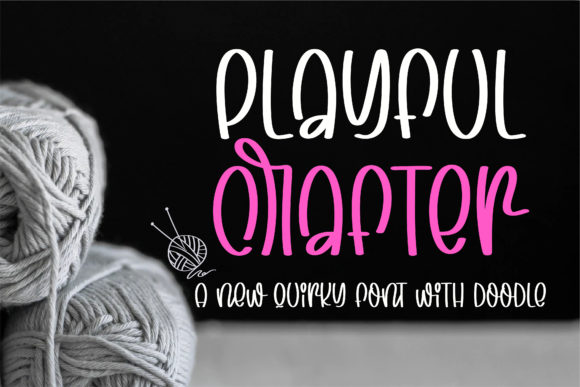
Welcome to the world of Playful Crafter Font, where creativity and joy dance together! This adorable display font, brought to life by BitongType, is a true masterpiece, crafted to add a touch of whimsy and delight to your designs. Its charming characters, reminiscent of a child's playful scribbles, will breathe life into your projects, making them burst with personality.
Imagine your address stamp adorned with Playful Crafter Font's enchanting letters. Each stroke, each curve, will tell a tale of your unique style. Your envelopes will become mini canvases, showcasing your love for the extraordinary. And as your mail embarks on its journey, it will carry with it a piece of your creative spirit, charming everyone along the way.
But Playful Crafter Font's magic extends far beyond address stamps. It's a versatile font, perfect for adding a touch of playfulness to your logos, branding, social media posts, and even your handwritten notes. Its quirky charm will transform your designs into eye-catching masterpieces, leaving a lasting impression on your audience.
Whether you're a seasoned designer or just starting your creative journey, Playful Crafter Font is your perfect companion. Its user-friendly nature makes it a breeze to work with, allowing you to unleash your imagination without any technical hurdles. Dive into the world of Playful Crafter Font today and let your creativity shine like never before!